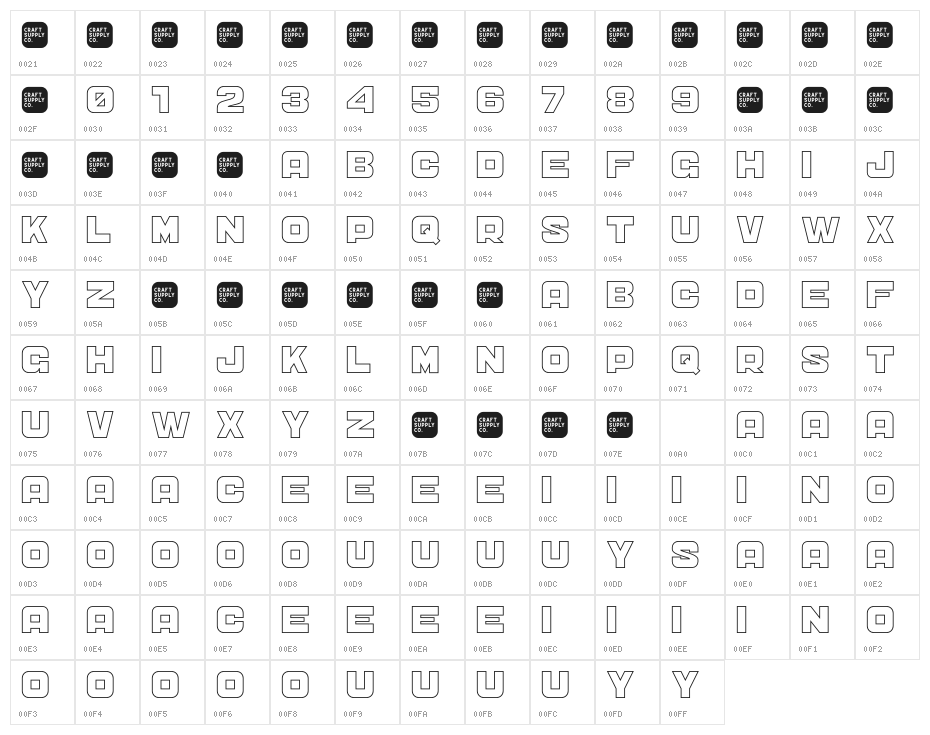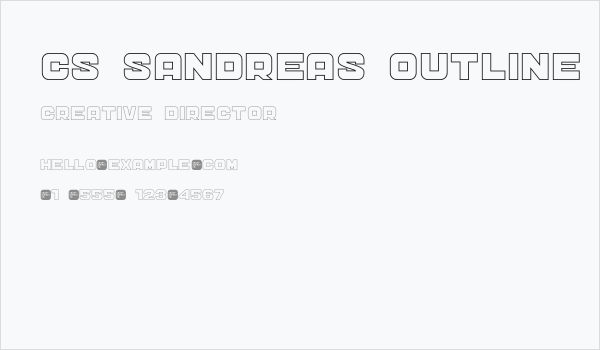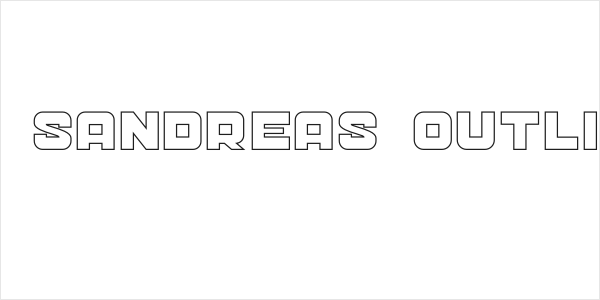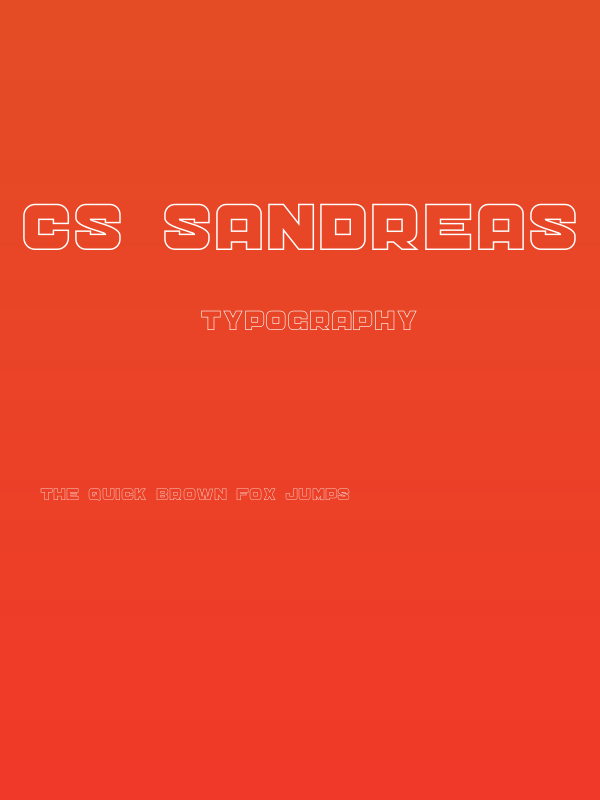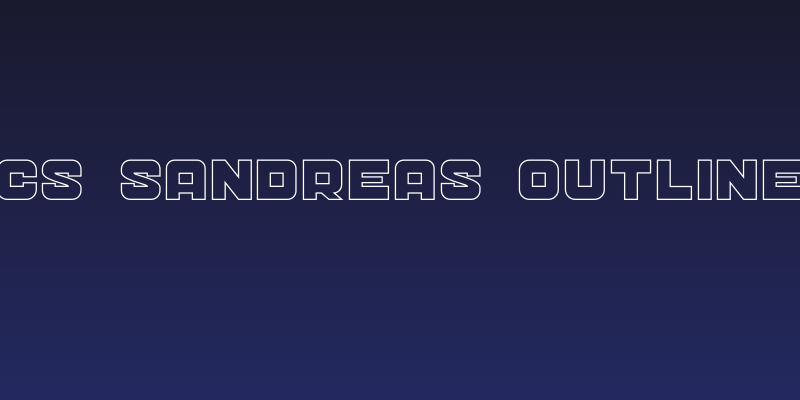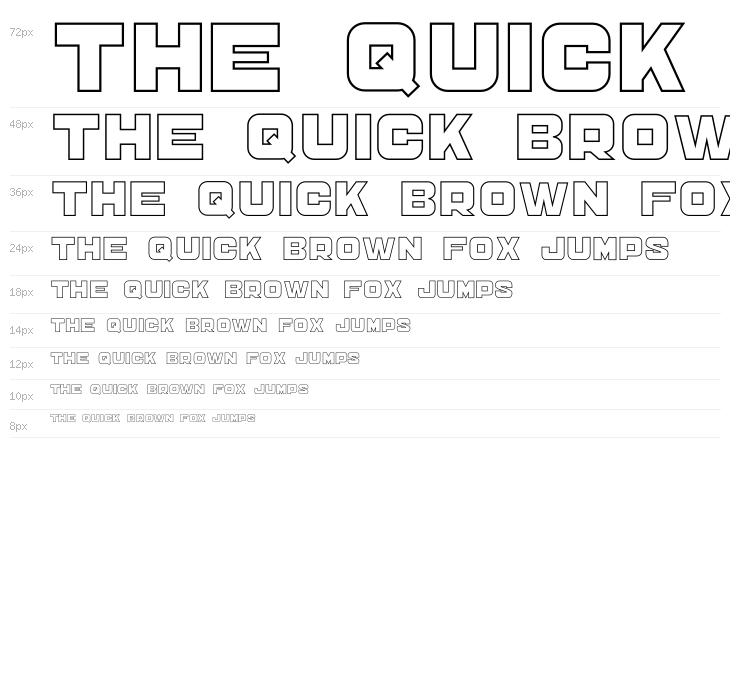
CS Sandreas Outline Font
CS Sandreas Outline Description
This font features a bold, geometric outline style that emphasizes each character with a strong, defined border. The uppercase letters are uniform in height and width, creating a cohesive and structured appearance. The numerals follow the same design principles, ensuring consistency across all characters. The font's outline design gives it a modern, industrial feel, making it suitable for projects that require a strong visual impact. Its clean lines and lack of interior fill make it ideal for use in designs where the background needs to be visible through the characters.
| Proposed Projects | Ideal for logos, posters, signage, and any design requiring a strong visual impact. |